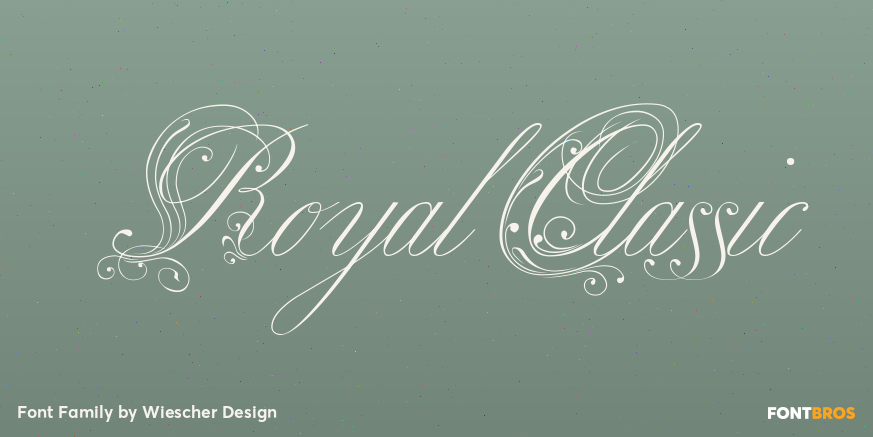
Royal Classic
About Royal Classic
Royal Classic is another work that is based on a design that has initially been comissioned by King Ludwig I of Bavaria for in-house-use. I bought a set of his chief scribes guidelines for writing and one of the scripts in the set is this elegant narrow…